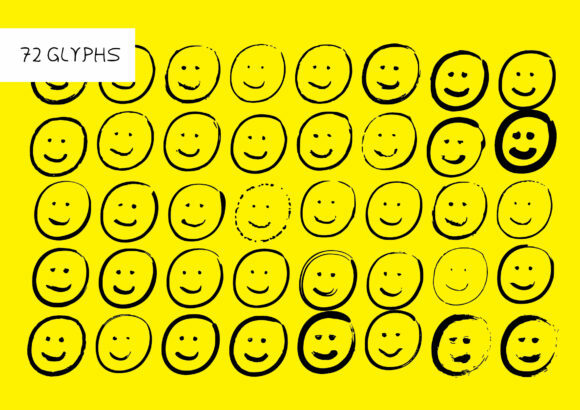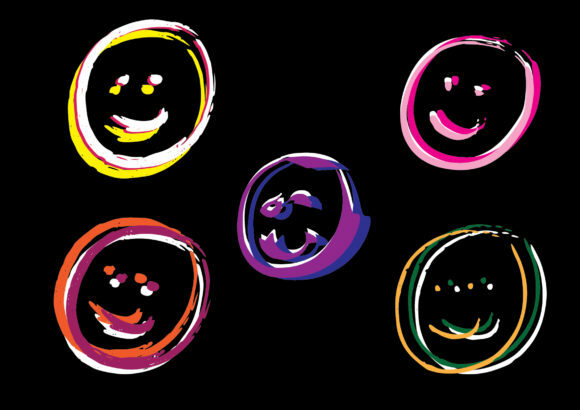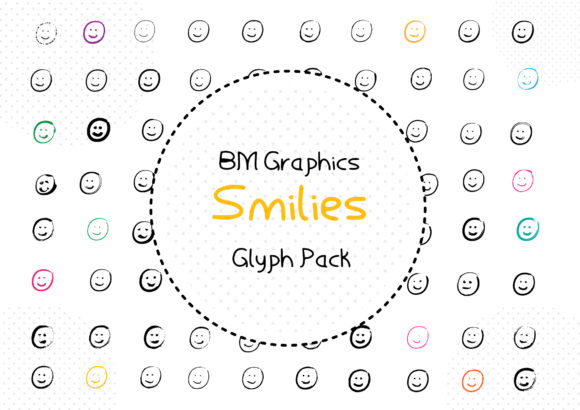
About BM Graphics – Smilies Font
Smilies sounds like a delightful dingbats font that can add a touch of positivity and charm to your designs. Here are some ways you can make the most of this font:
1. Messaging and Communication: Use the Smilies glyphs to enhance your messaging and communication. They can be used as emoticons or icons to convey various emotions and expressions in text messages, social media posts, or chat applications.
2. Graphic Design: Incorporate the Smilies glyphs into your graphic design projects. They can be used as decorative elements, icons, or symbols to add a playful and cheerful vibe to your designs. Consider using them in posters, flyers, brochures, or digital illustrations.
3. Branding and Packaging: If you’re working on branding or packaging design, the Smilies font can bring a positive and friendly touch to your materials. Consider using the glyphs in logos, labels, or product packaging to create a joyful and approachable brand image.
4. Children’s Projects: The Smilies font is particularly suitable for children’s projects. Whether it’s creating educational materials, children’s books, or crafting activities, the cute and expressive glyphs can engage and entertain young audiences.
5. Website and App Design: Incorporate the Smilies glyphs into website or app interfaces to enhance the user experience. They can be used as icons for buttons, navigation elements, or to provide visual feedback, adding a fun and interactive element to your design.
6. Stationery and Prints: Print your own custom stationery, greeting cards, or art prints using the Smilies font. The expressive glyphs can be used to create unique patterns, borders, or as standalone design elements to bring a smile to someone’s face.
Remember to experiment with the different Smilies glyphs to create various combinations and compositions that best suit your design needs. Let the charm and positivity of the Smilies dingbats font shine through in your projects!